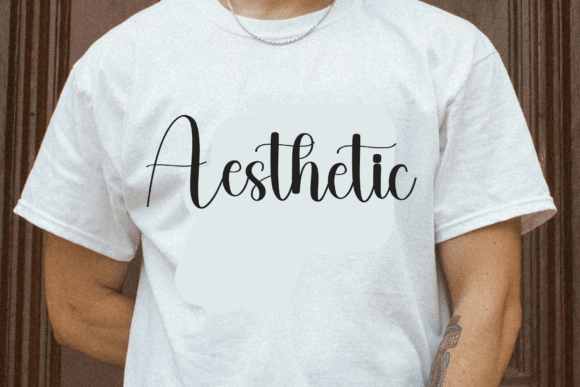
Introducing Deadline Font: The Perfect Blend of Elegance and Readability
In the world of typography, fonts play a crucial role in conveying the tone and personality of a brand or design. With the vast array of fonts available, it can be overwhelming to choose the right one that suits your needs. However, if you’re looking for a modern handwritten script font that exudes elegance and sophistication, look no further than Deadline Font. In this article, we’ll dive into the features and benefits of Deadline Font, and explore how it can elevate your designs to the next level.
What is Deadline Font?
Deadline Font is a modern handwritten script font that boasts a smooth, flowing style with a touch of elegance. Its rounded curves and easy readability make it an ideal choice for a variety of design applications, including planners, branding, quotes, and stylish social media graphics. Despite its name, Deadline Font gives your design a relaxed, handcrafted feel, making it perfect for when you want to keep things both neat and personal.
Key Features of Deadline Font
- Smooth and Flowing Style: Deadline Font features a smooth and flowing script style that gives your design a sense of elegance and sophistication.
- Rounded Curves: The font’s rounded curves make it easy to read and add a touch of warmth to your design.
- Elegant and Refined: Deadline Font is perfect for designs that require a level of elegance and refinement, such as luxury brands, high-end products, or sophisticated social media graphics.
- Handwritten Feel: Despite being a digital font, Deadline Font has a handwritten feel that gives your design a personal and human touch.
- Easy Readability: The font’s clear and concise style makes it easy to read, even at smaller font sizes.
Use Cases for Deadline Font
Deadline Font is a versatile font that can be used in a variety of design applications. Here are some use cases where Deadline Font shines:
- Planners and Organizers: Deadline Font is perfect for creating planners, journals, and organizers that require a touch of elegance and sophistication.
- Branding and Logo Design: The font’s unique style makes it an excellent choice for branding and logo design, especially for luxury brands or high-end products.
- Quotes and Inspirational Content: Deadline Font is ideal for creating inspirational quotes, social media graphics, and other motivational content that requires a touch of elegance.
- Social Media Graphics: The font’s stylish and modern design makes it perfect for creating social media graphics, such as Instagram posts, Facebook covers, and Twitter headers.
Benefits of Using Deadline Font
Using Deadline Font in your designs offers several benefits, including:
- Unique and Memorable: Deadline Font’s unique style makes it easy to create memorable and distinctive designs that stand out from the crowd.
- Elegant and Sophisticated: The font’s elegant and refined style adds a level of sophistication to your design, making it perfect for high-end brands or luxury products.
- Easy to Read: Deadline Font’s clear and concise style makes it easy to read, even at smaller font sizes, ensuring that your message is communicated effectively.
- Versatile: The font’s versatility makes it suitable for a wide range of design applications, from planners and branding to social media graphics and quotes.
Tips for Using Deadline Font Effectively
To get the most out of Deadline Font, here are some tips for using it effectively:
- Pair with Other Fonts: Deadline Font pairs well with other fonts, such as sans-serif fonts, to create a visually appealing contrast.
- Use for Headings and Titles: The font’s elegant style makes it perfect for headings and titles, adding a touch of sophistication to your design.
- Experiment with Colors: Deadline Font looks great in a variety of colors, so don’t be afraid to experiment and find the perfect color scheme for your design.
- Keep it Simple: While Deadline Font is elegant and refined, it’s essential to keep your design simple and uncluttered to ensure that the font shines.
In conclusion, Deadline Font is a modern handwritten script font that offers a unique blend of elegance, sophistication, and readability. Its smooth and flowing style, rounded curves, and easy readability make it perfect for a variety of design applications, from planners and branding to social media graphics and quotes. With its versatility, ease of use, and range of benefits, Deadline Font is an excellent choice for designers looking to elevate their designs to the next level.
- What is Deadline Font? Deadline Font is a modern handwritten script font with a smooth, flowing style and a touch of elegance.
- What is Deadline Font used for? Deadline Font is perfect for planners, branding, quotes, social media graphics, and other design applications that require a touch of elegance and sophistication.
- Is Deadline Font easy to read? Yes, Deadline Font is designed to be easy to read, even at smaller font sizes.